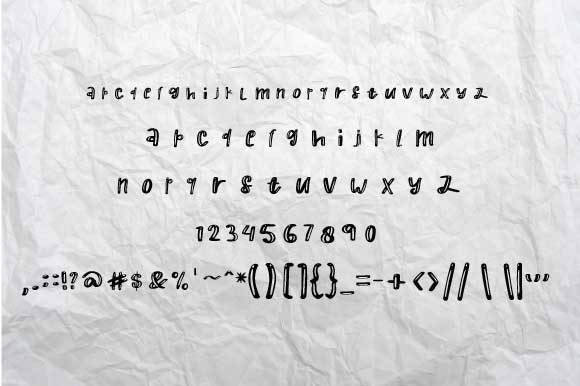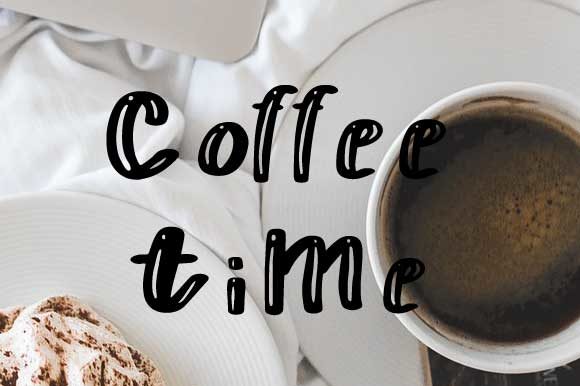
Boba Boba Font
About Boba Boba Font
Boba Boba is a one-of-a-kind handwritten font featuring fascinating characters. Fall in love with its modern charm!